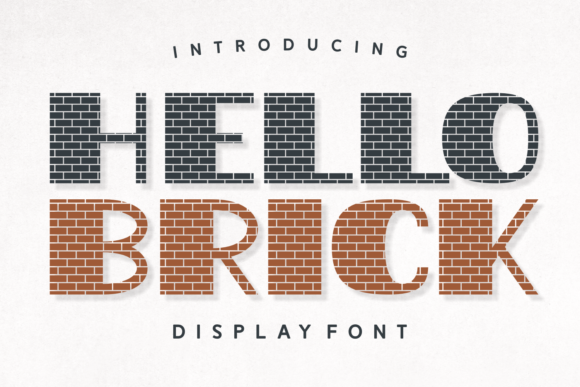
Journey into the world of musical expression with Hello Brick Font, a captivating decorative typeface designed to dance across your designs with playful charm. Its whimsical curves and playful strokes will ignite your creativity, transforming your music posters into captivating masterpieces.
Hello Brick Font is not just a collection of letters; it's an invitation to let your imagination soar. Its unique character radiates a sense of lightheartedness and joy, making it the perfect choice for capturing the infectious energy of music. Whether you're creating posters for concerts, album covers, or any other music-themed project, Hello Brick Font will add a touch of enchantment that will resonate with your audience.
Beyond its musical allure, Hello Brick Font is a versatile performer. Its quirky personality lends itself to a wide range of design concepts, from whimsical invitations to vibrant social media graphics. Its ability to blend seamlessly with other fonts makes it an ideal choice for creating eye-catching headlines, playful quotes, and engaging call-to-actions.
But Hello Brick Font is more than just a versatile tool; it's an emotional connection. Its friendly and approachable nature invites interaction, making it perfect for designs that aim to spark joy and spread happiness. Its playful strokes have the power to uplift spirits, create a sense of wonder, and leave a lasting impression on your viewers.
If you're ready to add a touch of musical magic to your designs, Hello Brick Font is your perfect partner. Its vibrant personality, playful charm, and endless possibilities will empower you to create designs that sing, dance, and inspire. Let Hello Brick Font be your muse and let your creativity flow in perfect harmony.